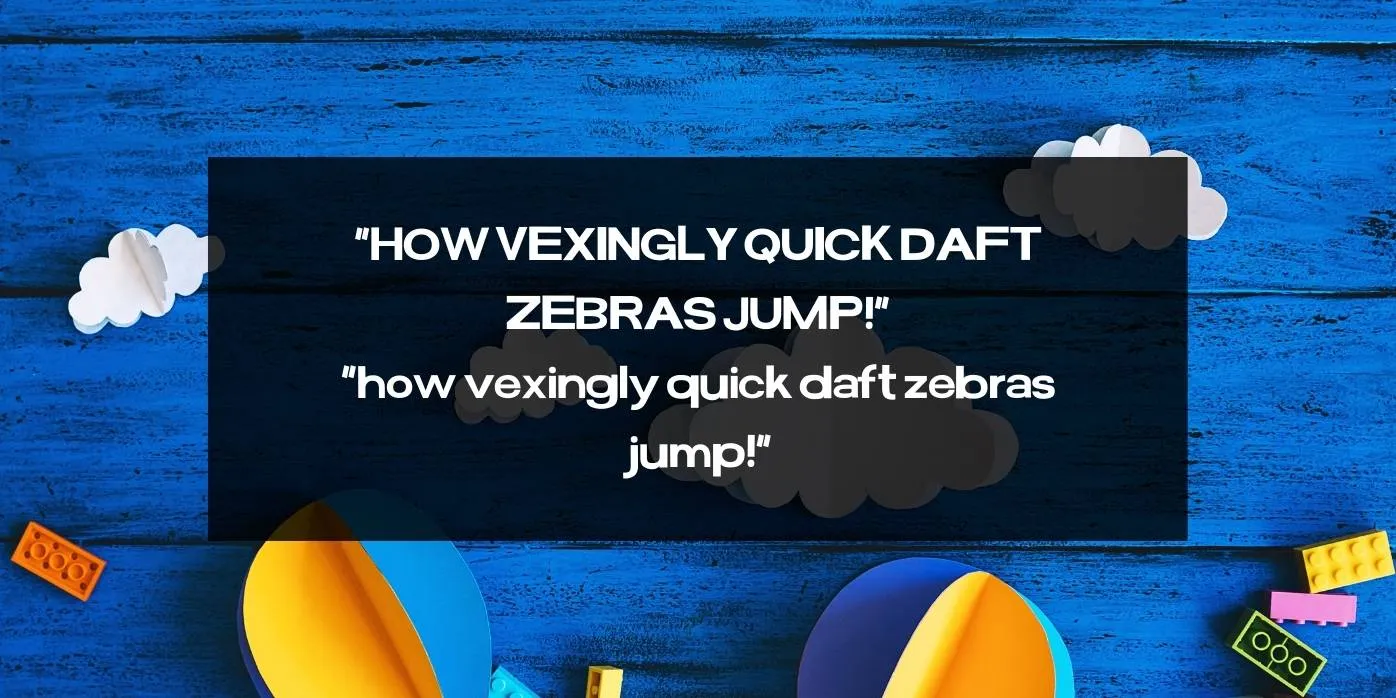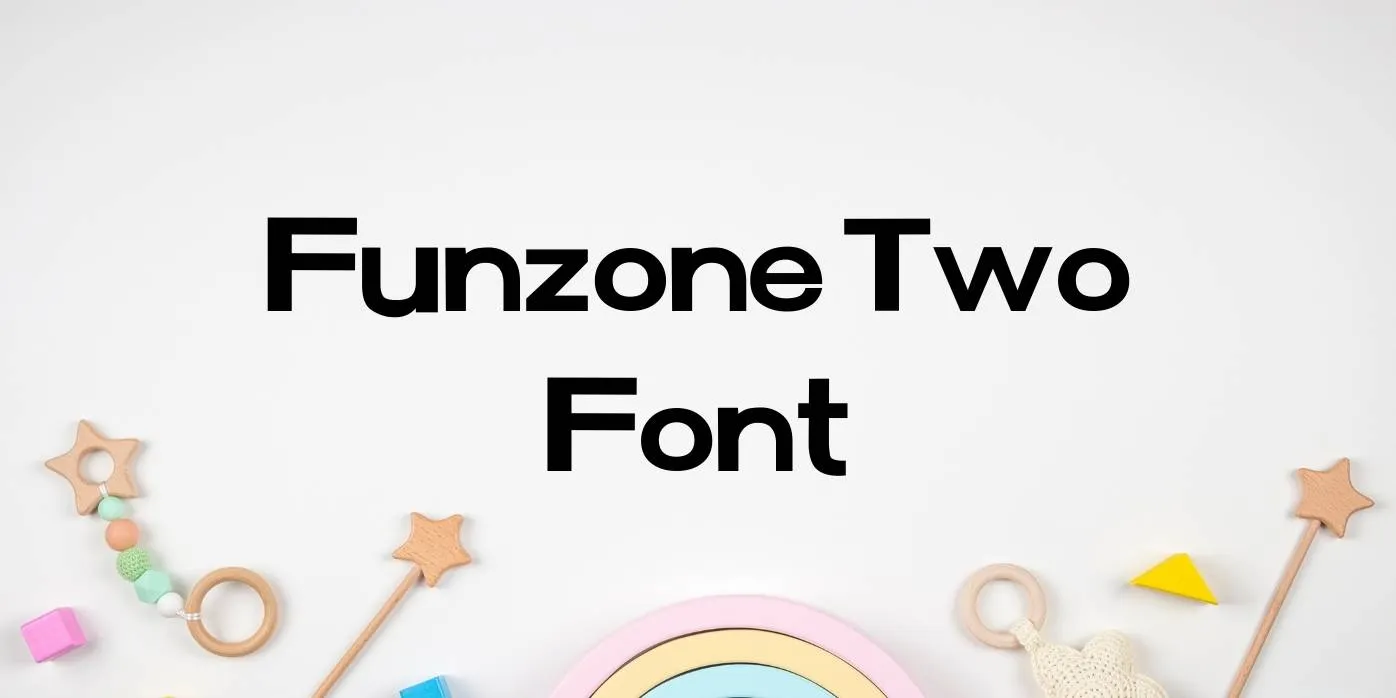
Funzone Two Font
Here, we present a famous and popular typeface known as Funzone Two Font. This family belongs to the sans serif family and was designed by  FontDeliveror. This attractive font was created to provide a versatile and easily legible typeface for both digital and print purposes. This awesome font is a highly functional typeface that can be used for both body text and headlines.
The letters are well-spaced and have a very consistent width, which makes them easy to read. You can also use bmw font which is closest to this font family. The Funzone Two Typeface also includes a wide variety of weights and styles, so it can be used in a variety of different contexts. Its copy-and-paste function is best for different designs.
One of the most unique features of this font is its “double story” a feature that allows for two separate glyphs to be used for the same character. The generator tool of this typeface is perfect for a different design.